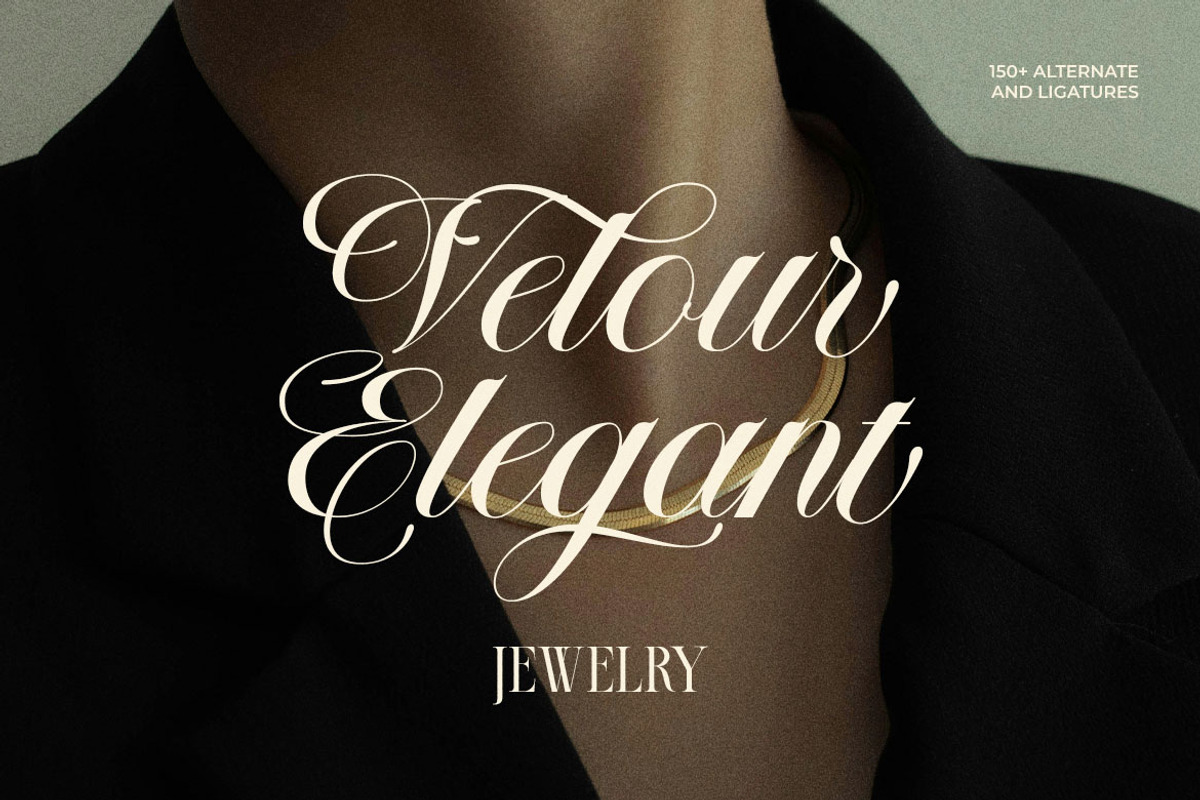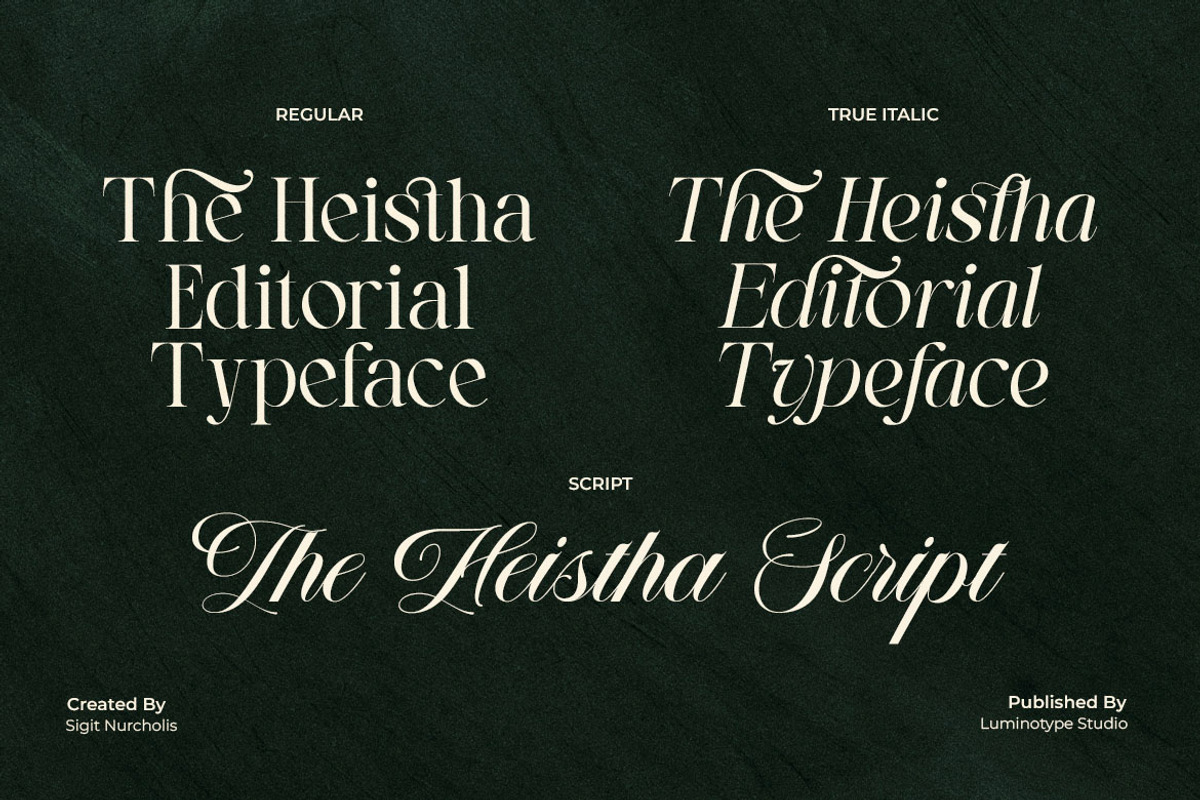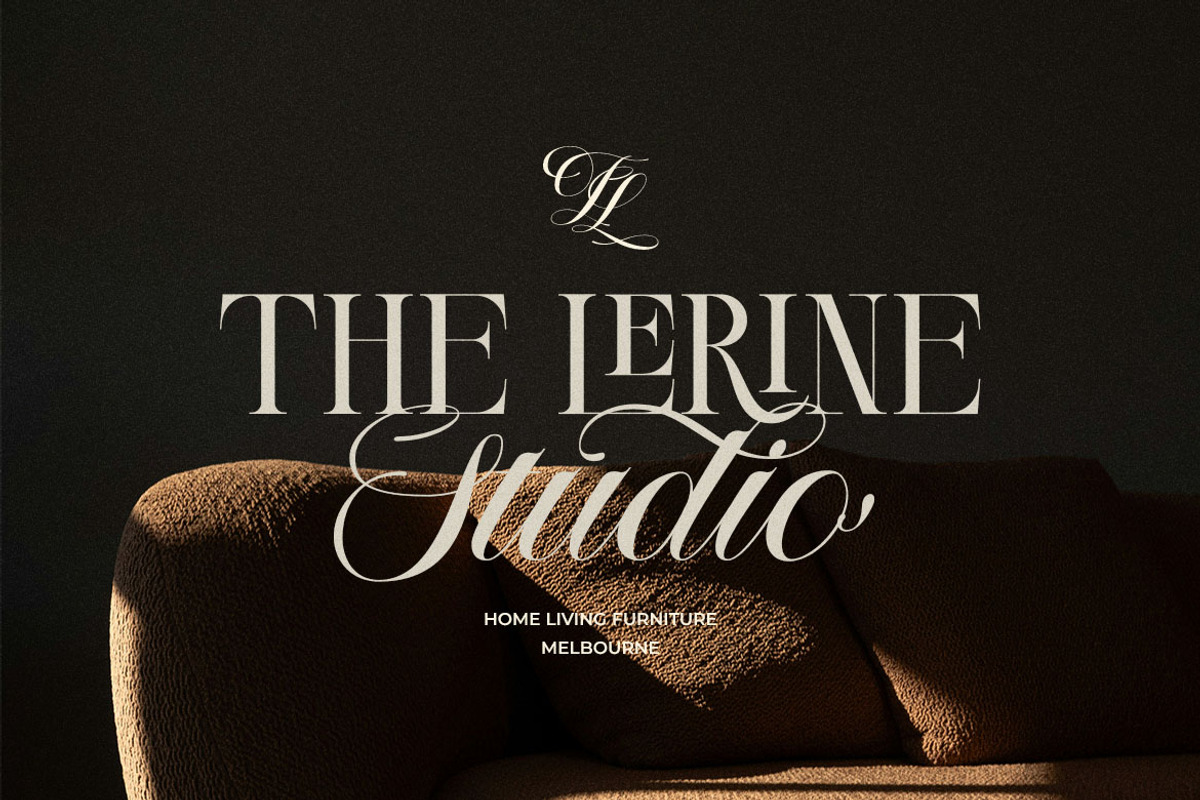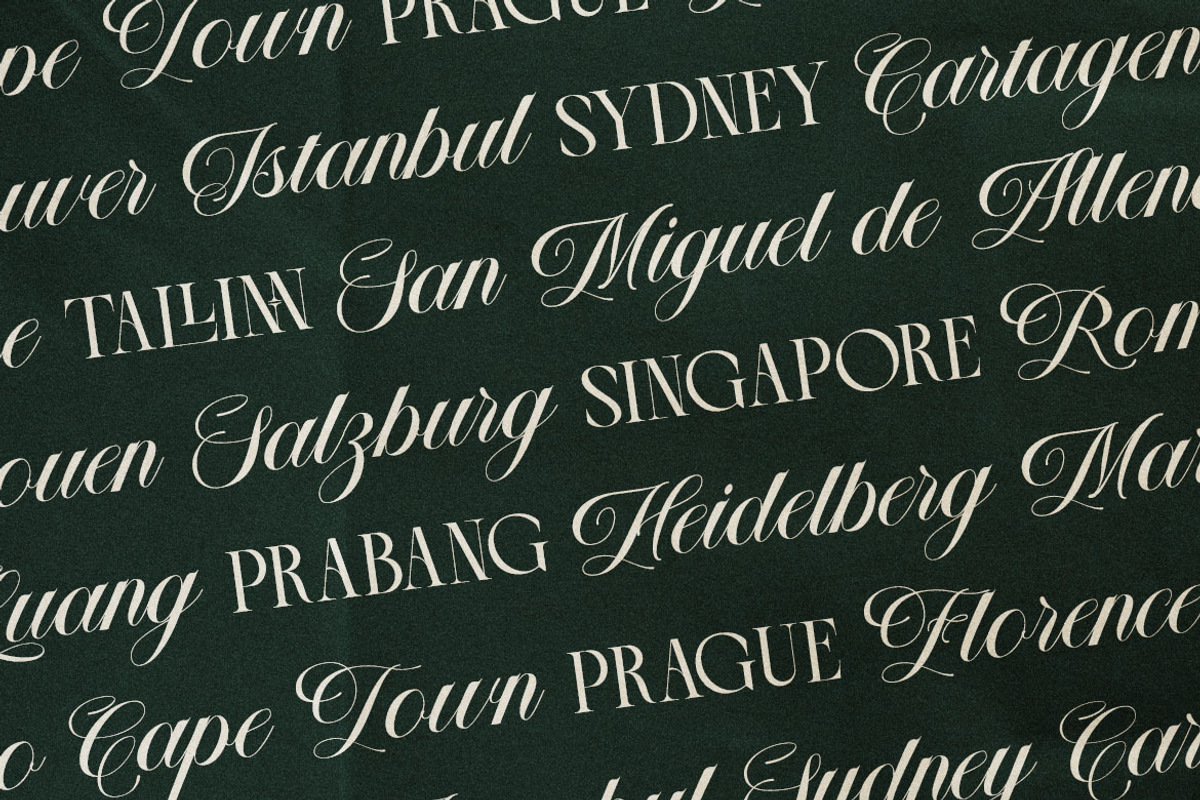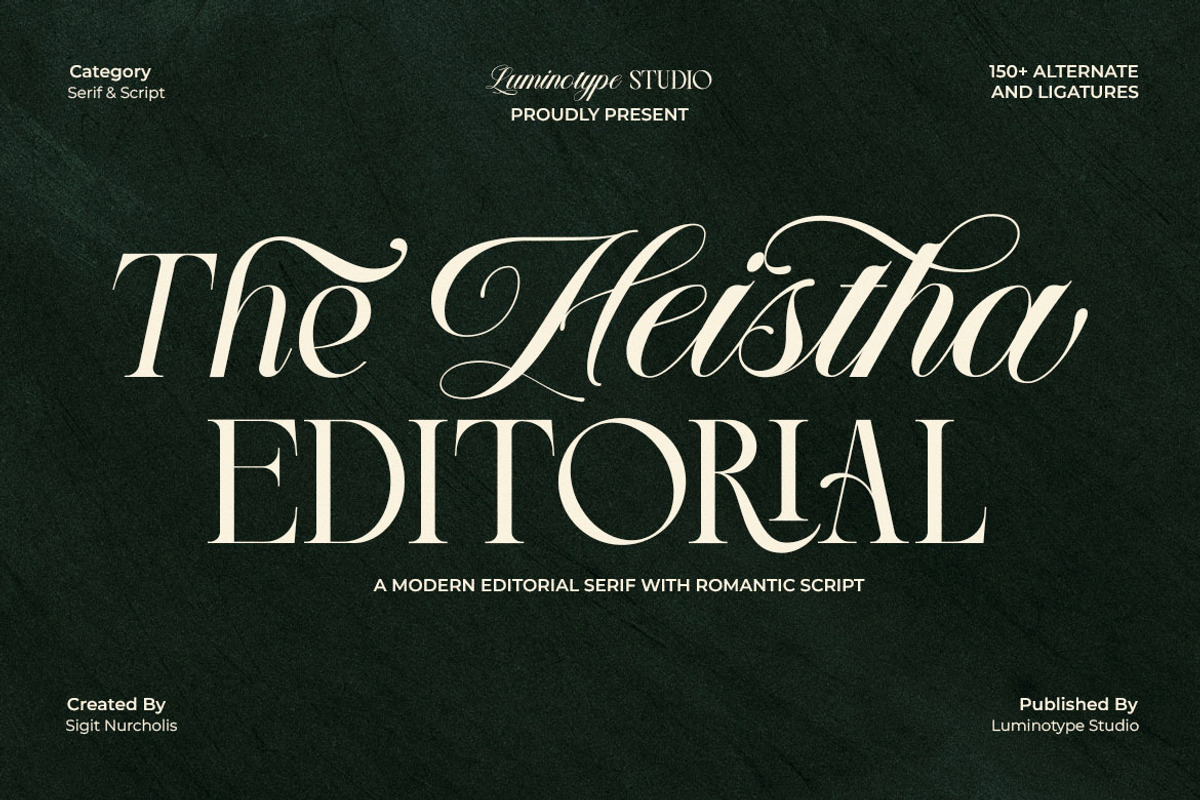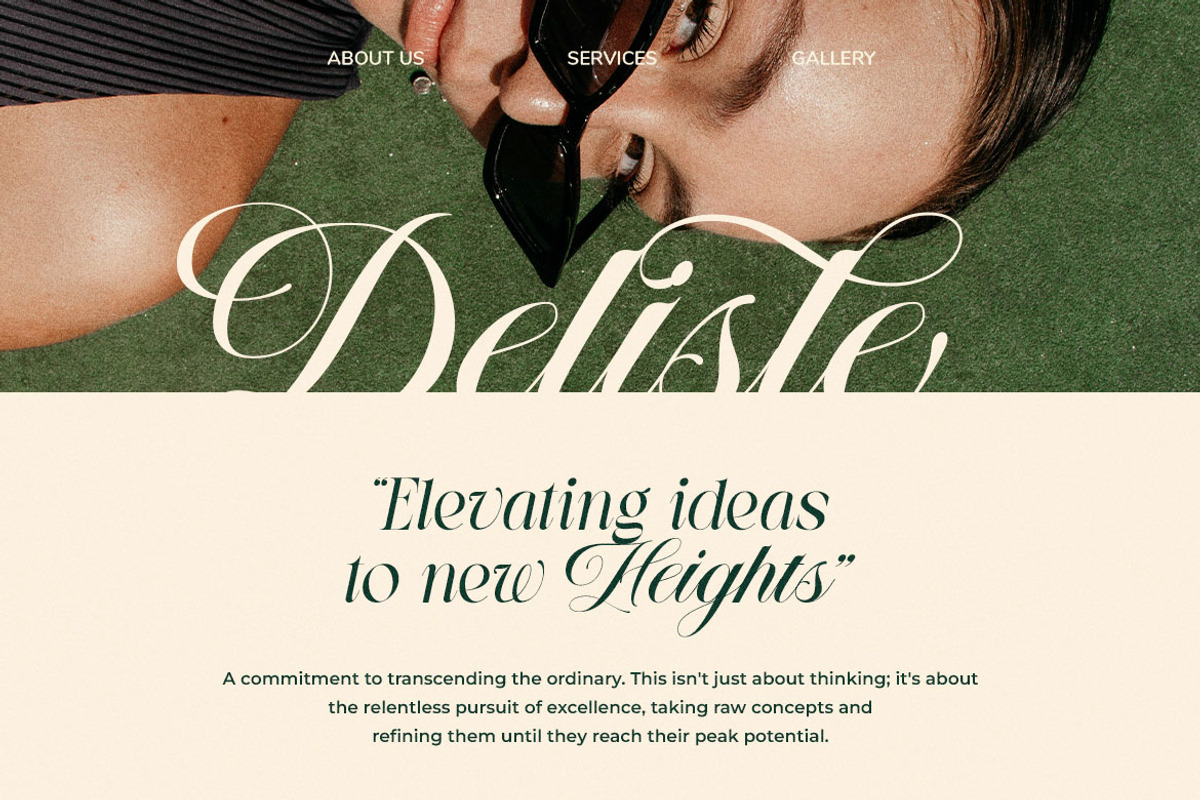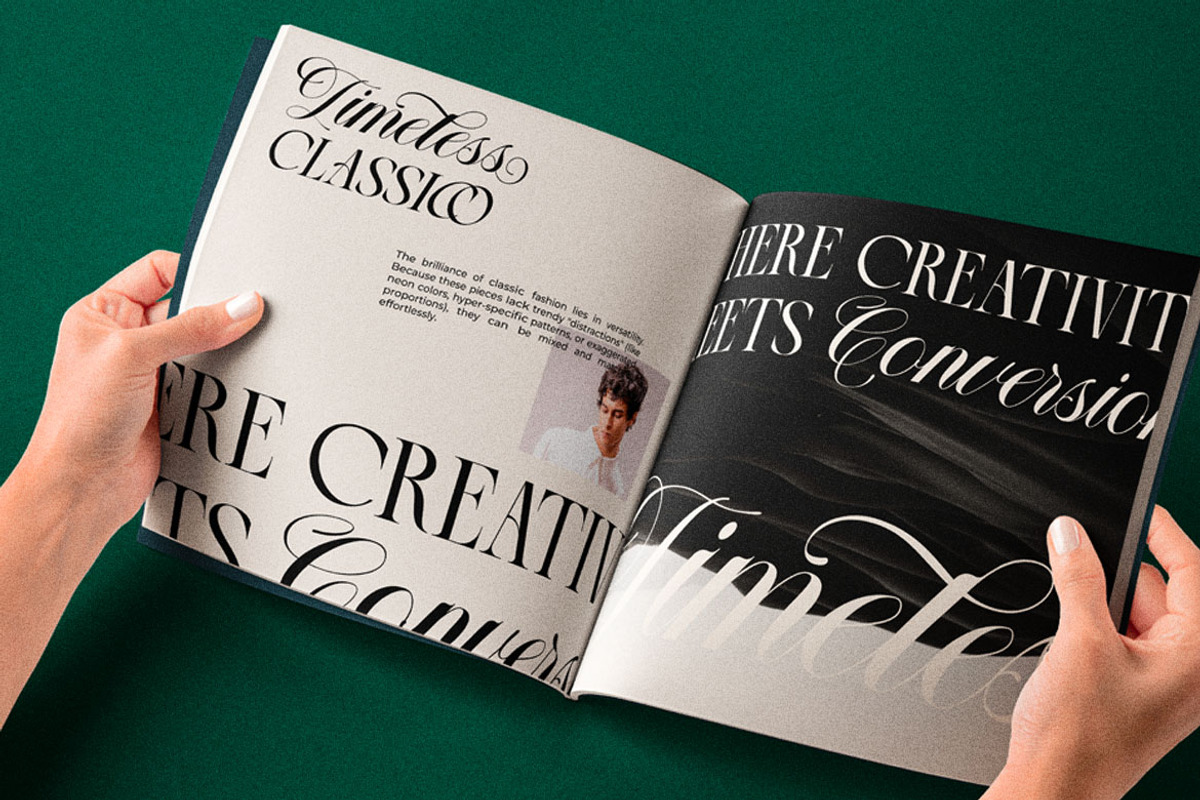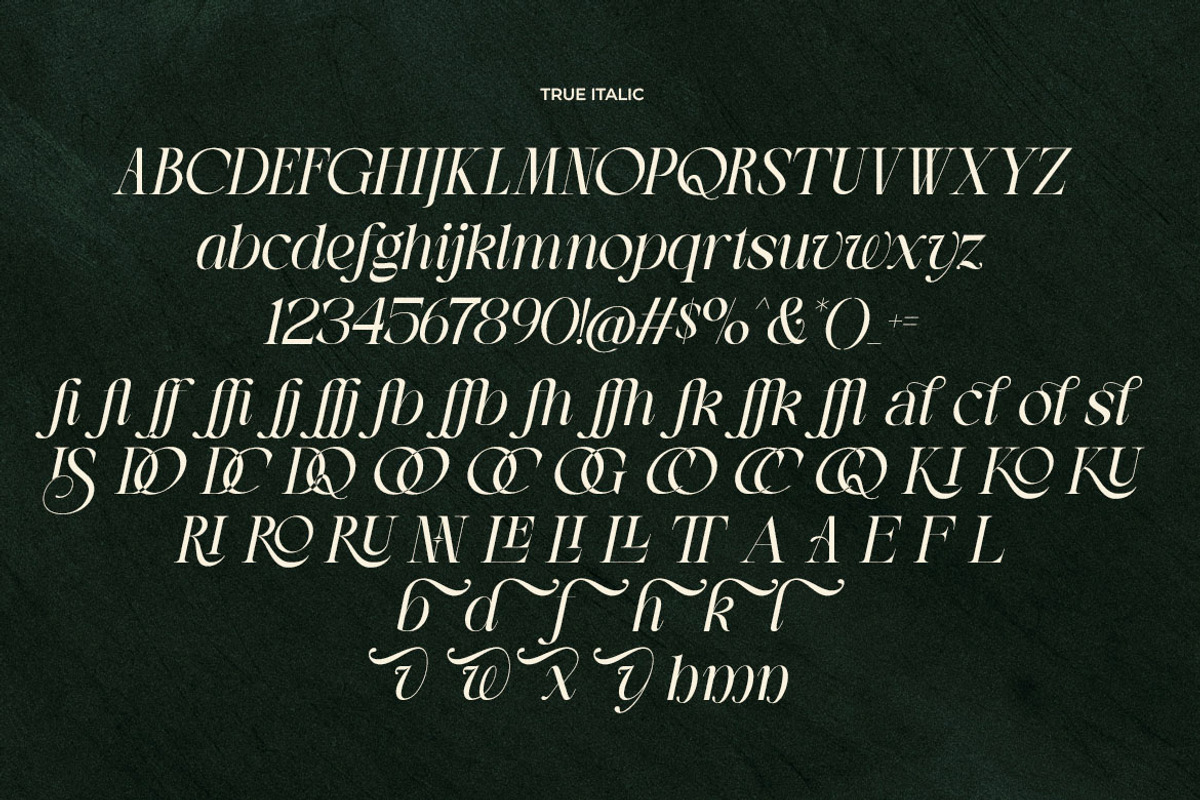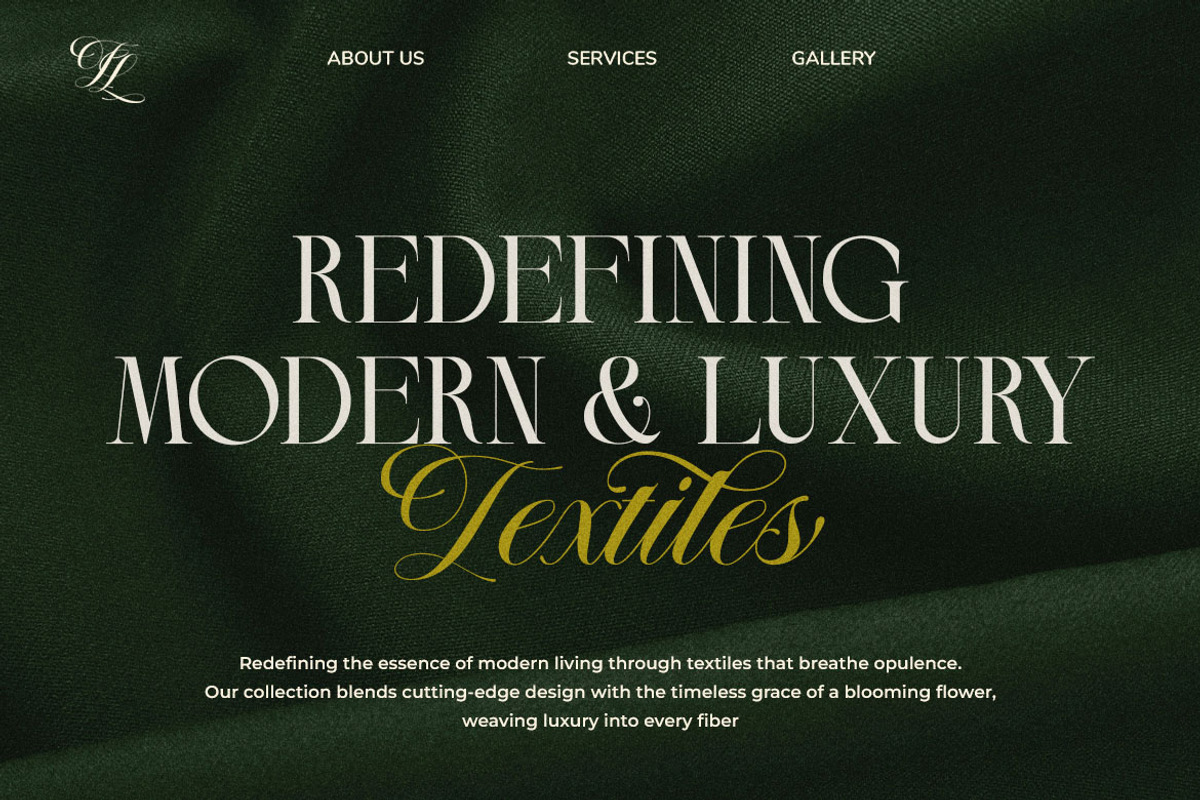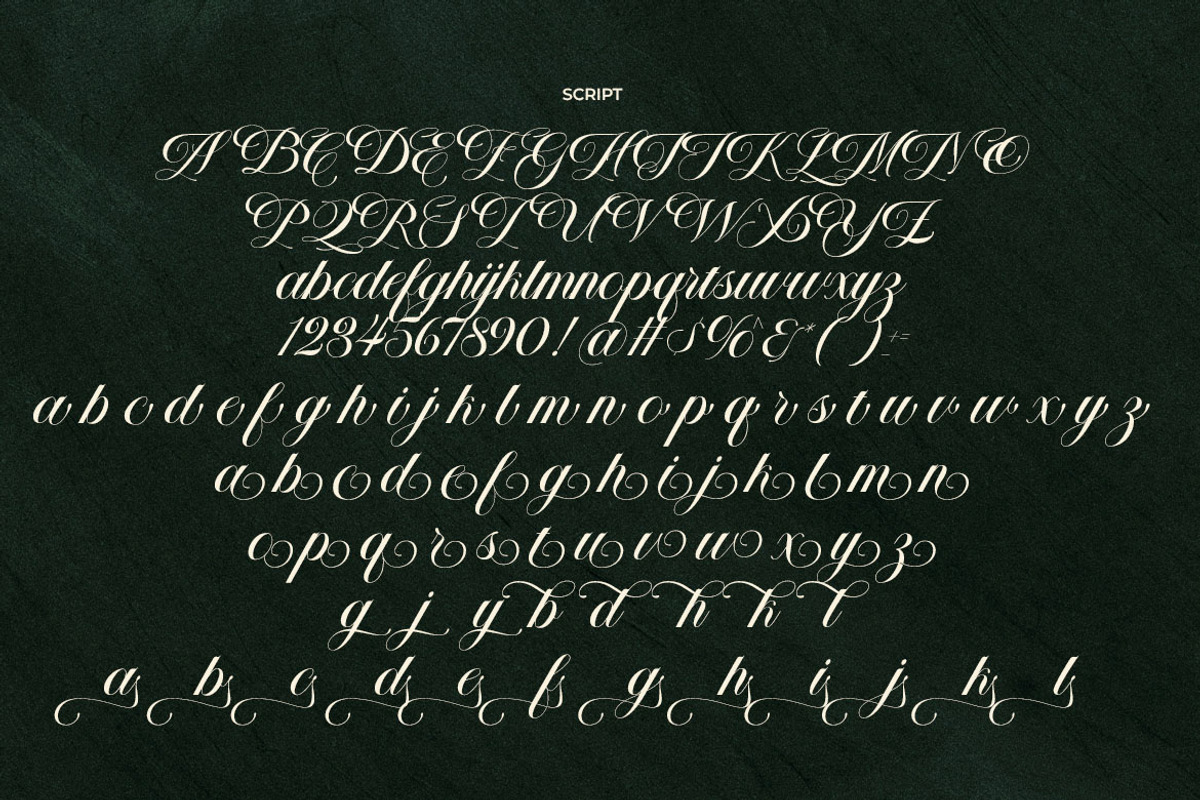
LT The Heistha Editorial - Font Duo
Elevate your design projects with The Heistha Editorial, a stunning font duo that embodies timeless sophistication. By perfectly pairing a refined, modern serif font with a sweeping, elegant script, this collection is meticulously crafted to infuse your work with a premium, classy aesthetic. Whether designing for high-end luxury brands or seeking a striking contemporary look, this commercial-grade typeface delivers an unforgettable visual impact that instantly captures your audience's attention.
The Heistha Editorial offers incredible versatility for creatives looking to make a bold, professional statement. The seamless contrast between the structured serif and the romantic script makes it the ultimate choice for a variety of high-profile applications. It is flawlessly best used in luxury logos, exquisite product packaging, cinematic movie titles, captivating posters, high-fashion editorial layouts, and striking website headers.
Character Set : Includes a full set of Uppercase and Lowercase